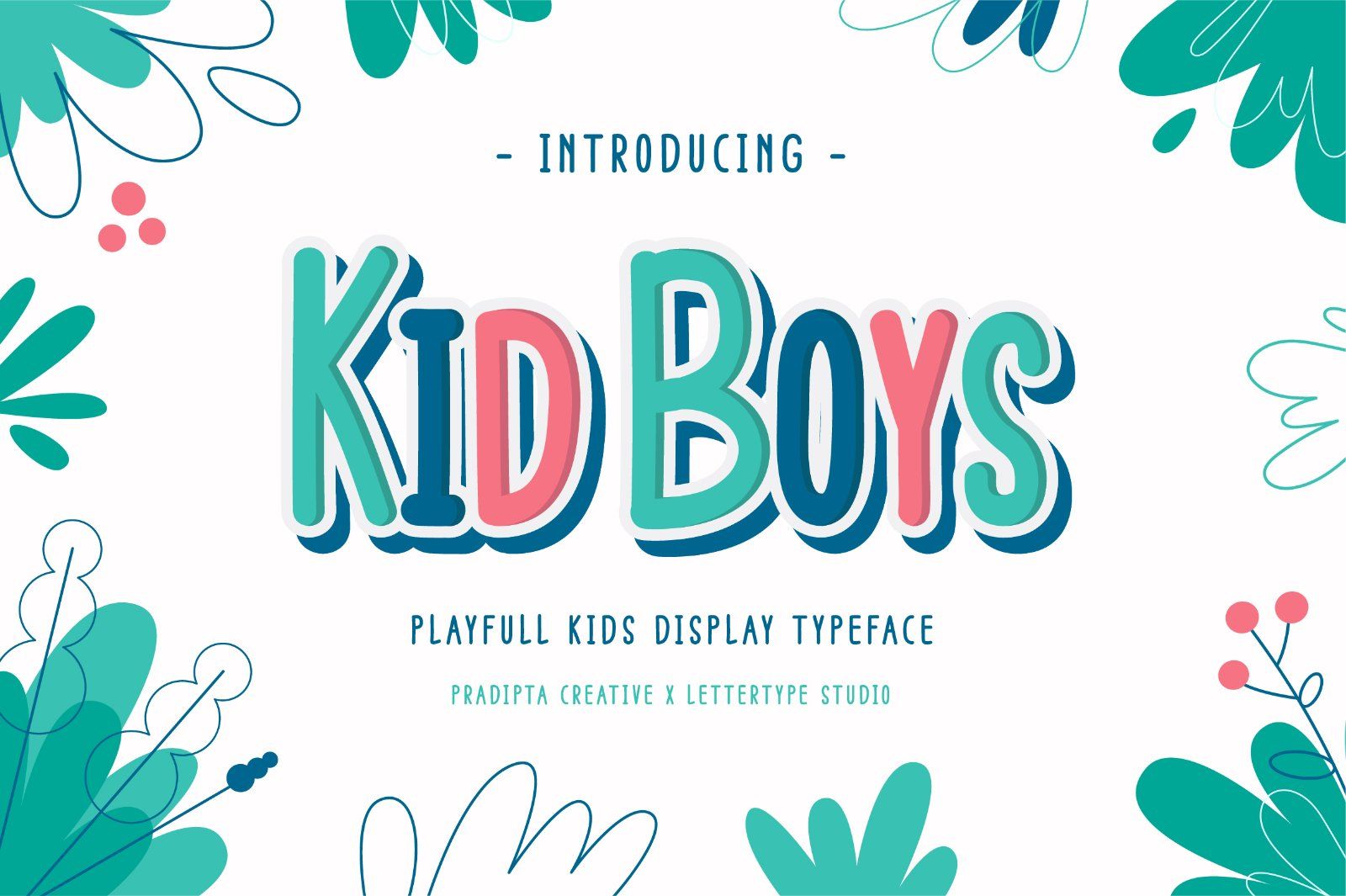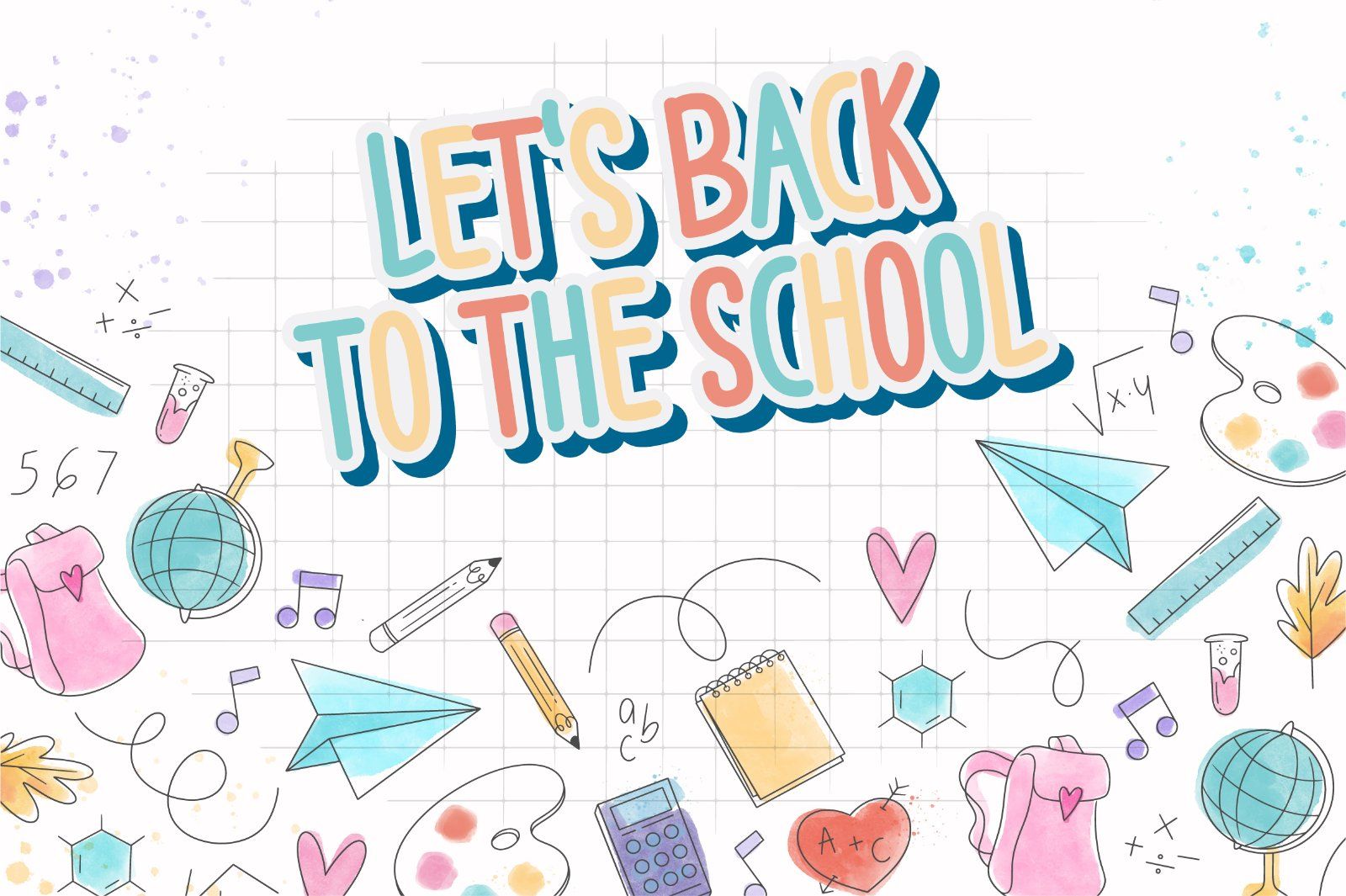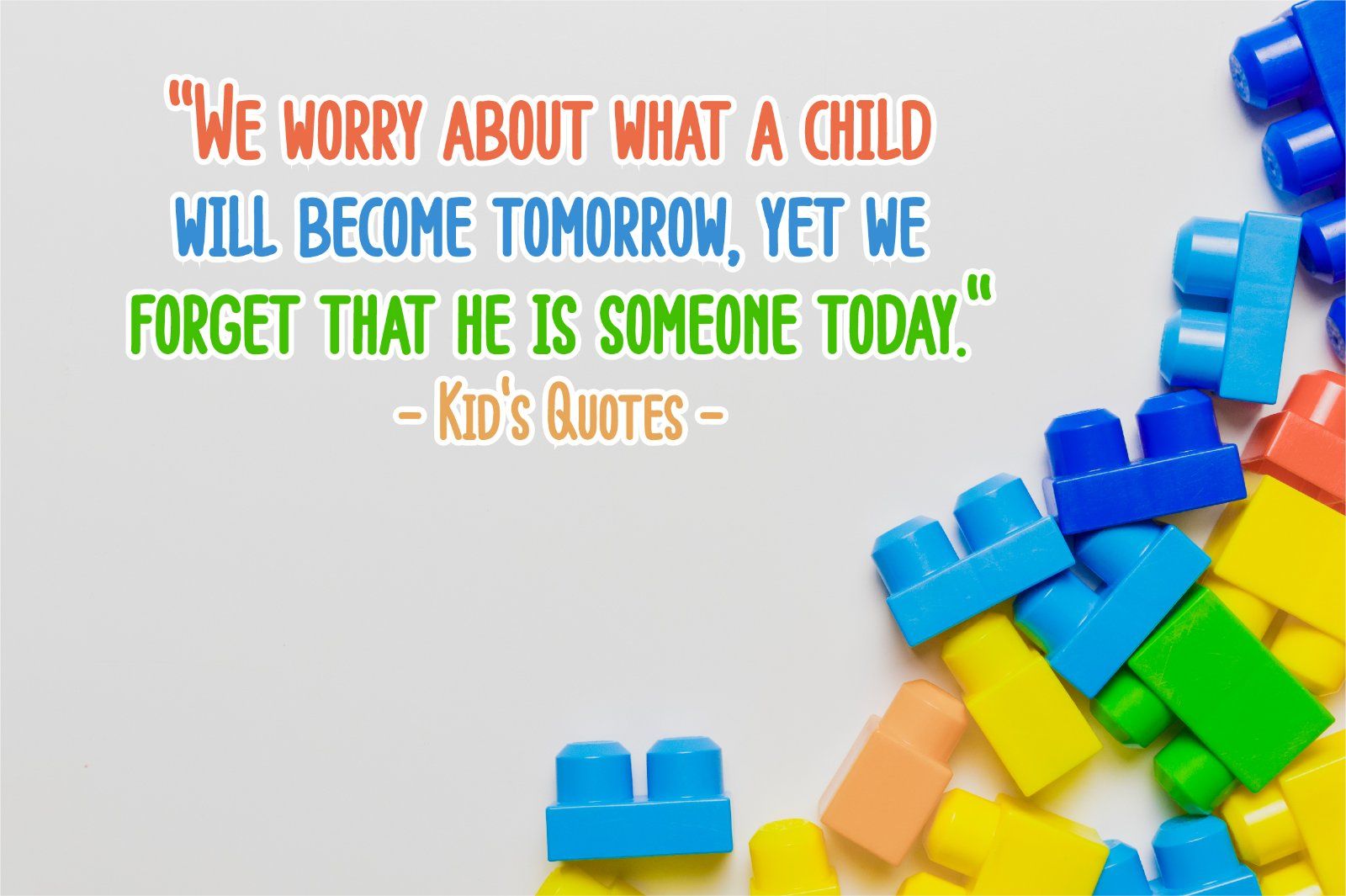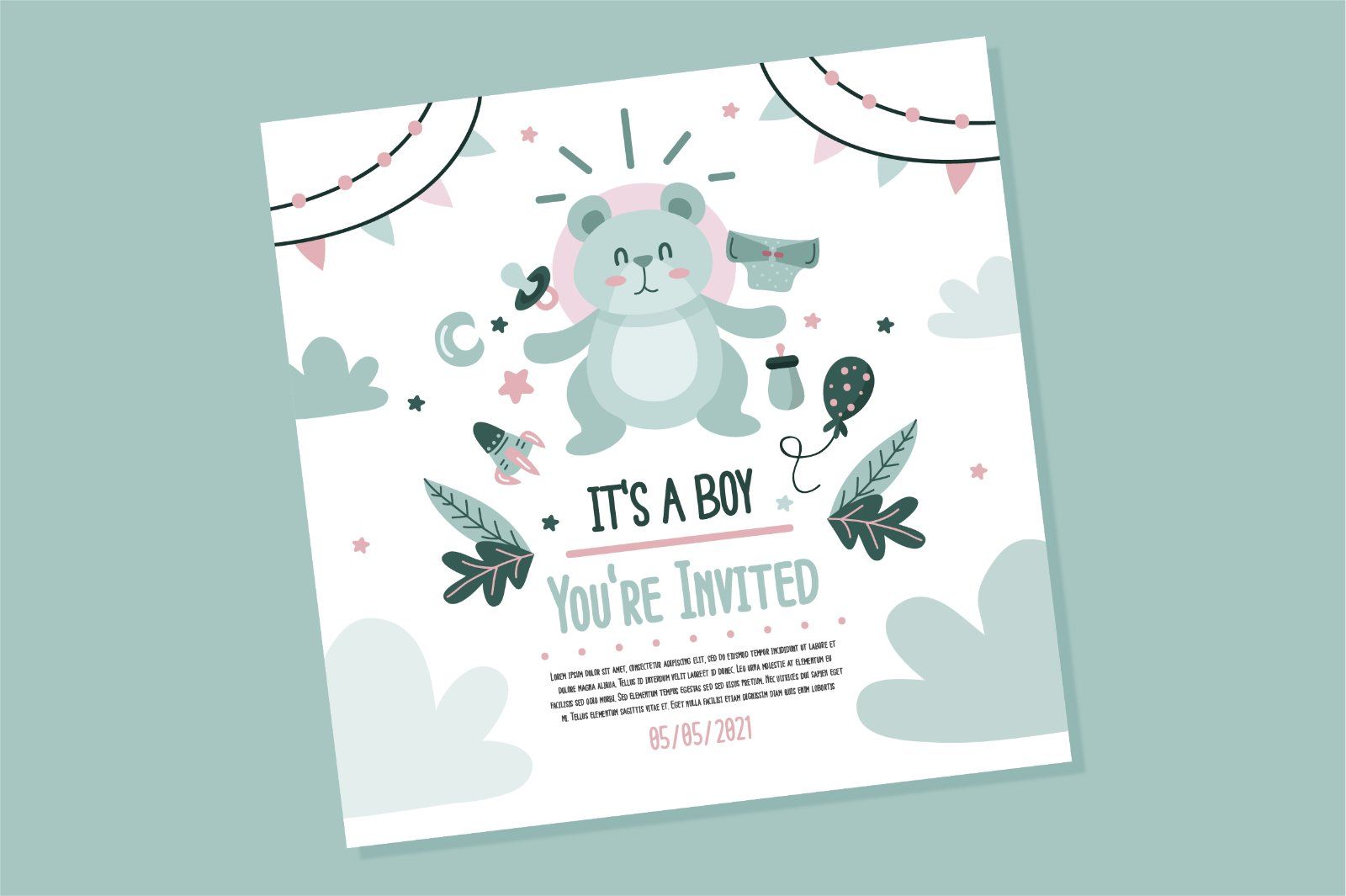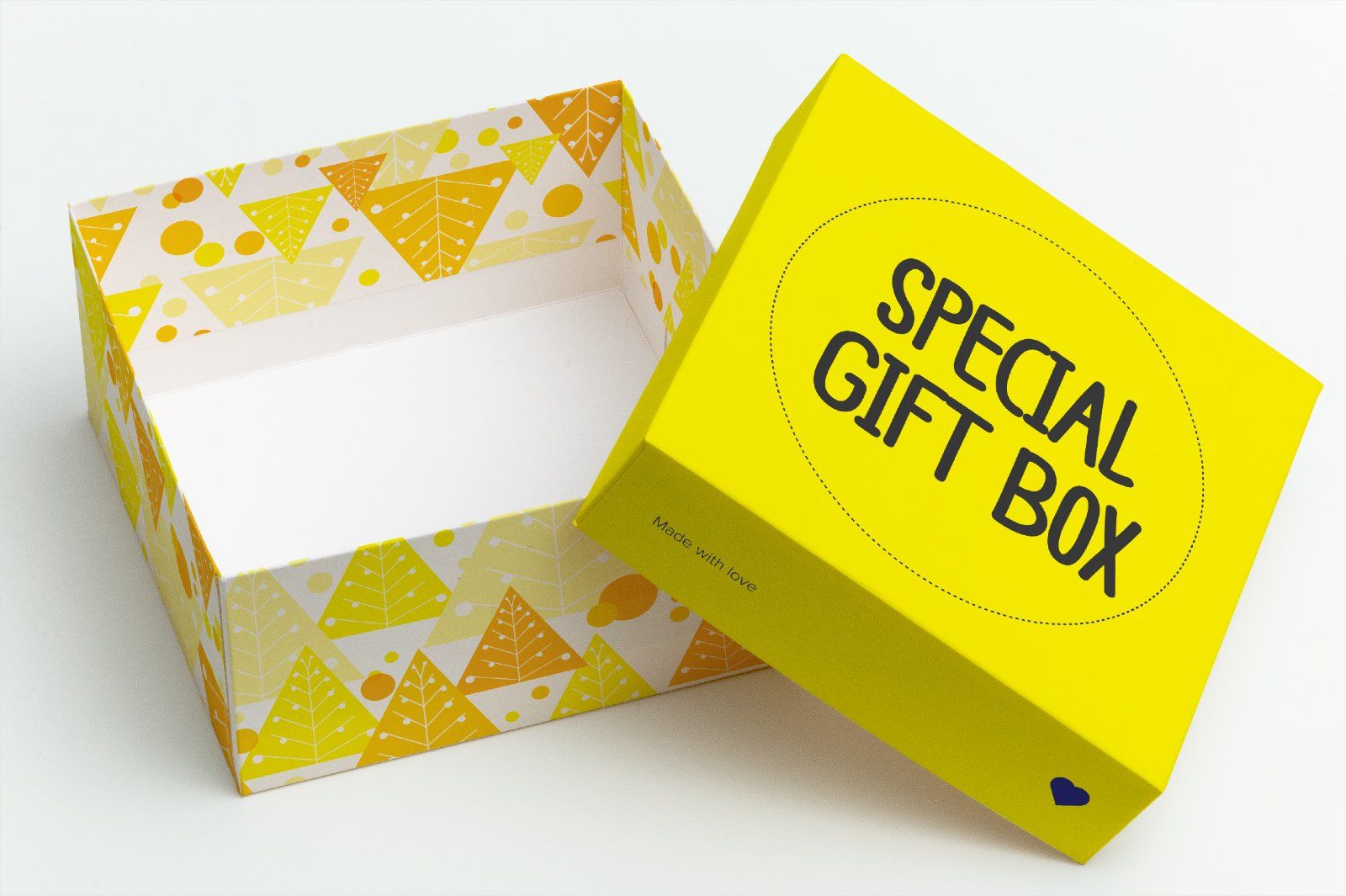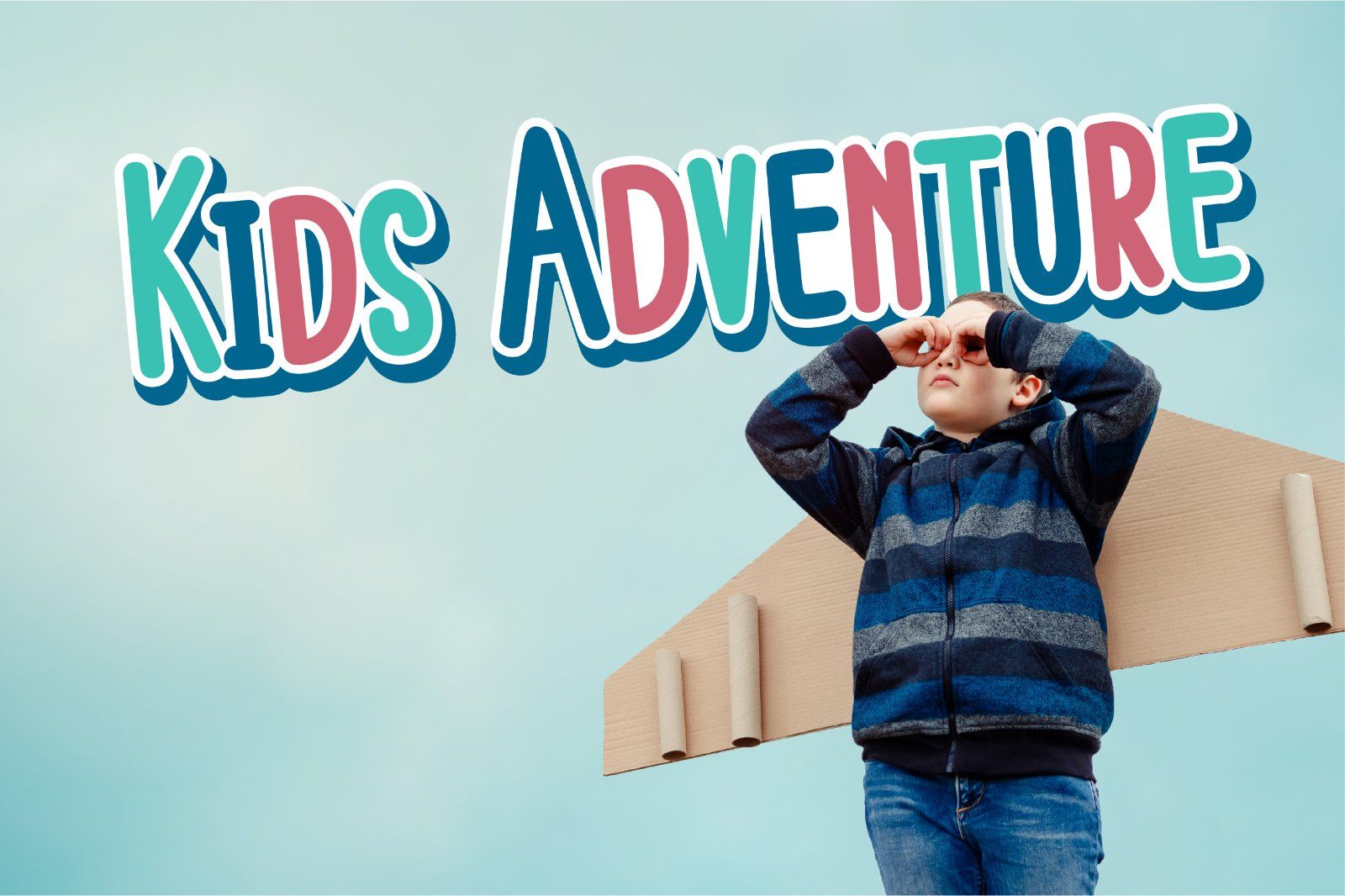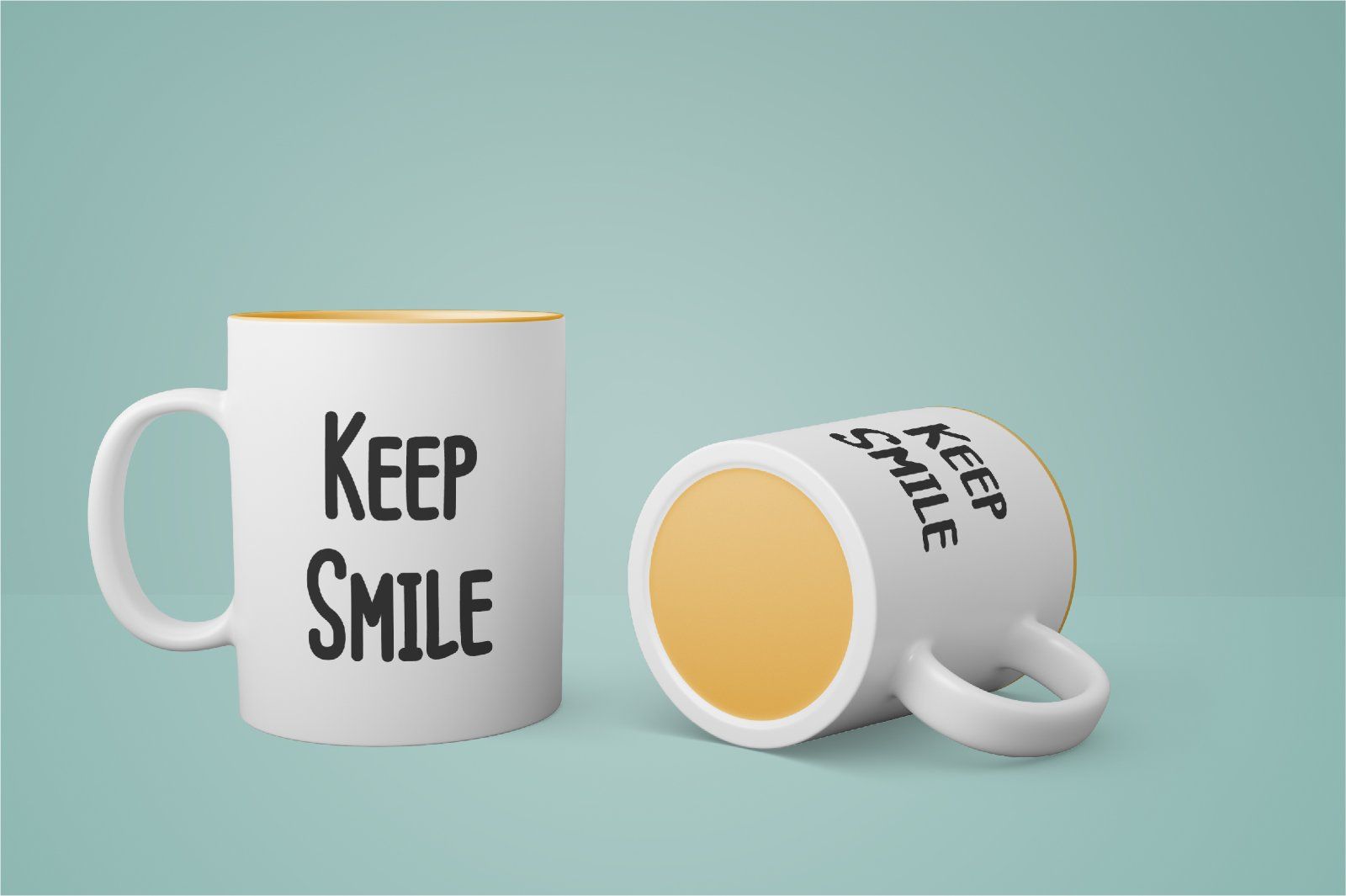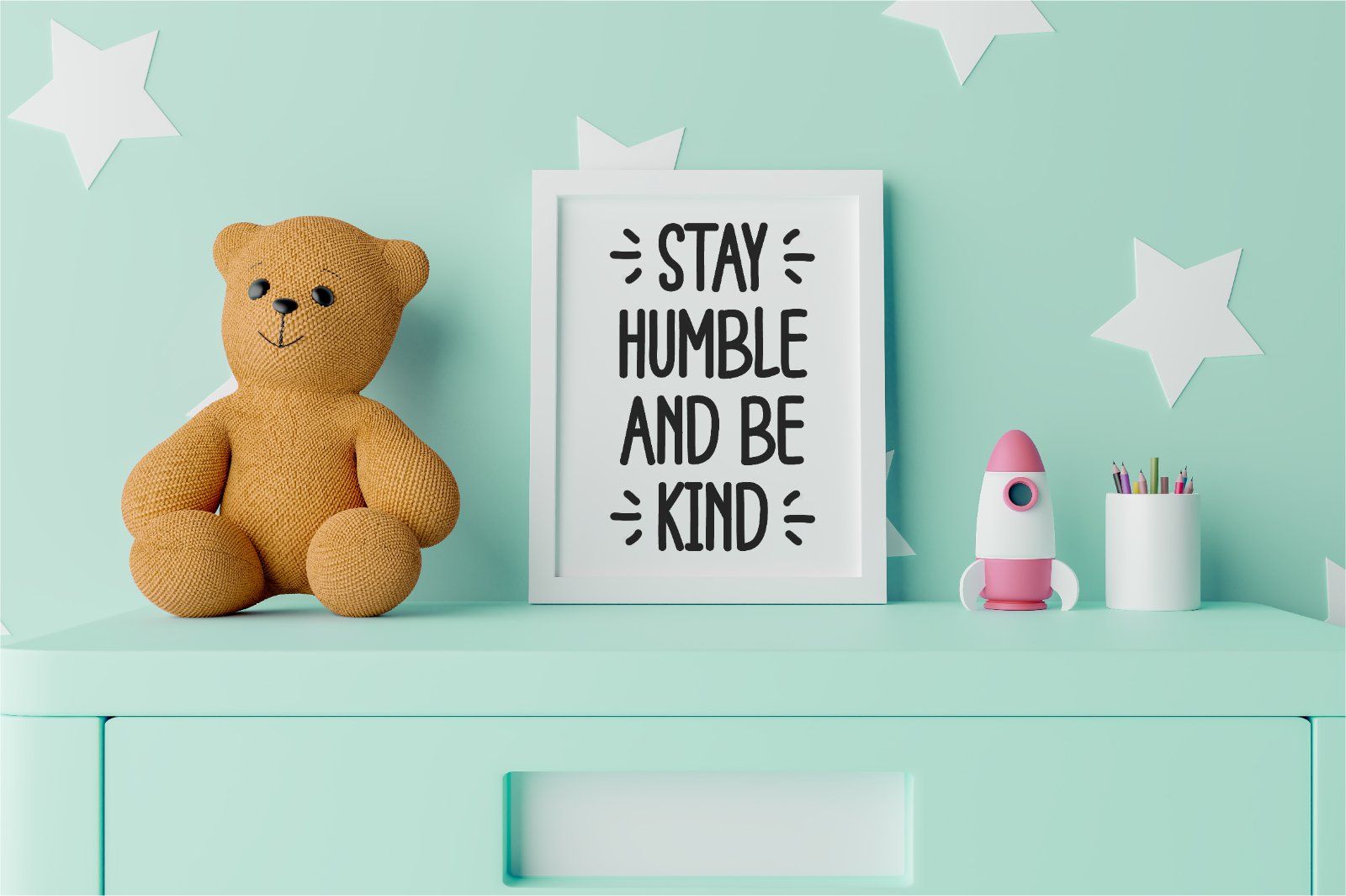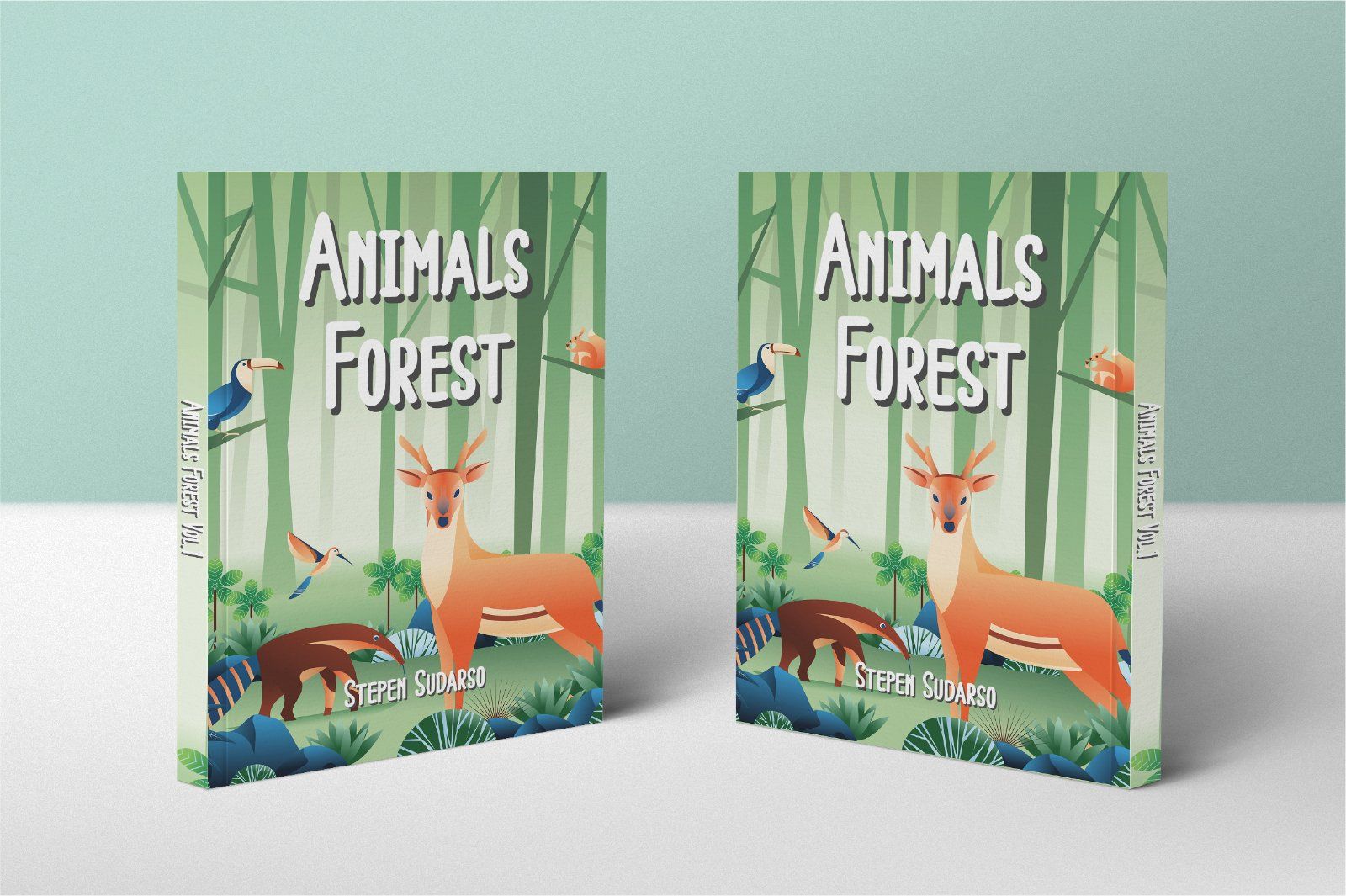
Introducing of our new product the name is Kid Boys - Playful Font.
Kid Boys - Playful font inspired by Kids style this font is a very good for logo, design tittle, display, branding, poster, logotype, mockup, book cover, quotes, and etc.